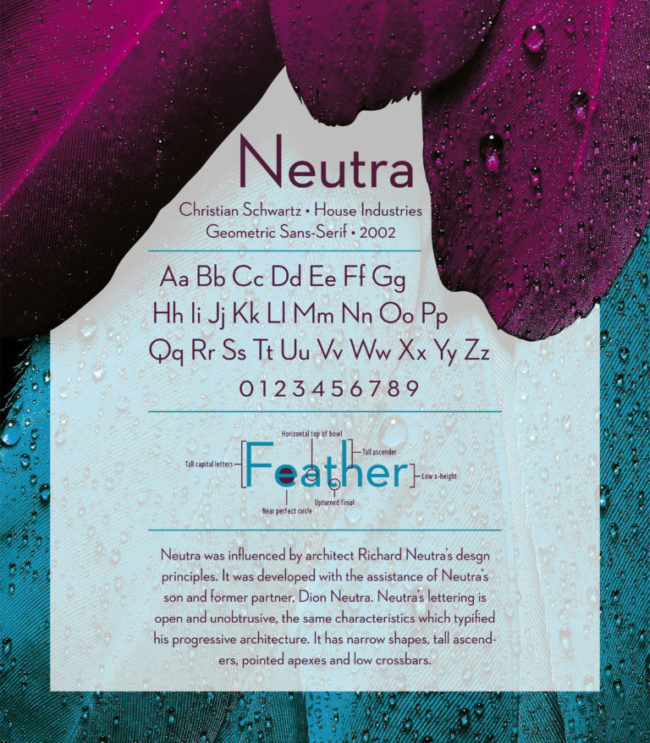
Font of the Week – Neutra
House Industries released Neutra, a modern and geometric typeface developed by Christian Schwartz, in 2002. It is widely applied in the print, but doesn’t get used nearly as often on the web. Neutra’s cool and clean style can be seen in the signage for Shake Shack as well as in advertising material for fast-food chain Wendy’s.